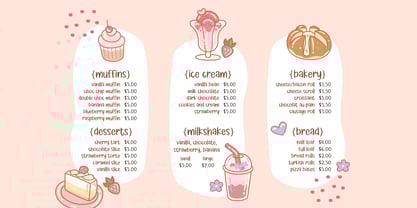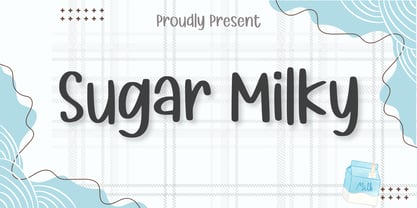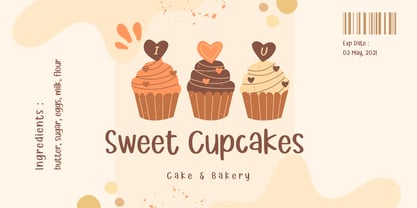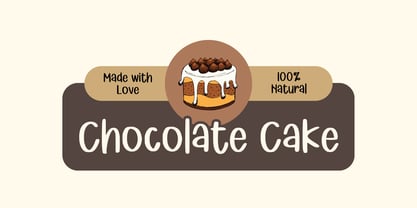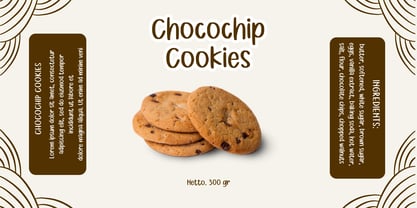
Sugar Milky
by Aisyah
The Sugar Milky Font Family was designed by Nur Aiysah Amalia and published by Aisyah. Sugar Milky contains 1 styles.
Introducing Sugar Milky, an adorable yet hip handwritten font that effortlessly straddles the line between cute and cool. Ideal for extended texts, this font maintains readability without losing its unique charm. It's equally versatile in corporate branding, adding an engaging twist to your business identity. For artisan crafting and innovative projects, Sugar Milky breathes life and personality into your creative vision. Unleash your imagination with Sugar Milky, where sweetness meets sophistication in a one-of-a-kind font experience. Perfect for those who think outside the box and aren't afraid to infuse a dash of fun into their work.